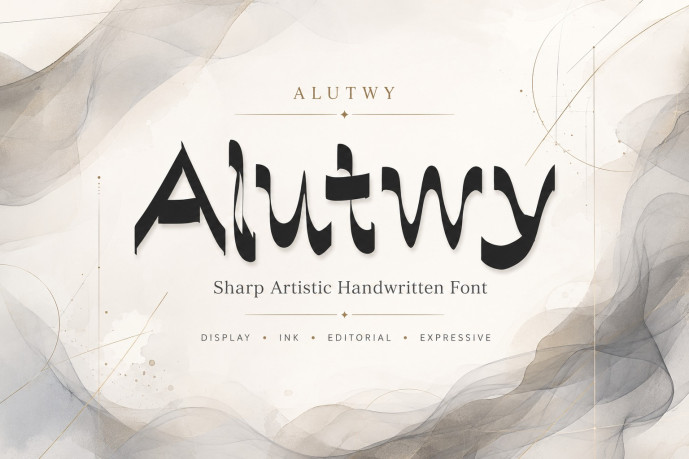
Alutwy Font
Alutwy is a bold and artistic handwritten font with a sharp, edgy, and expressive style. Its unique cut-like strokes, irregular shapes, and strong hand-drawn character make it perfect for designs that need a dramatic and eye-catching look.
This font is ideal for posters, bold titles, album covers, stickers, Halloween-inspired designs, mystery projects, streetwear graphics, branding, packaging, social media posts, quotes, Cricut projects, and print-on-demand products.
Alutwy is a great choice for designers, crafters, and small business owners who want a unique handmade font with strong personality, artistic energy, and a modern edgy feel.